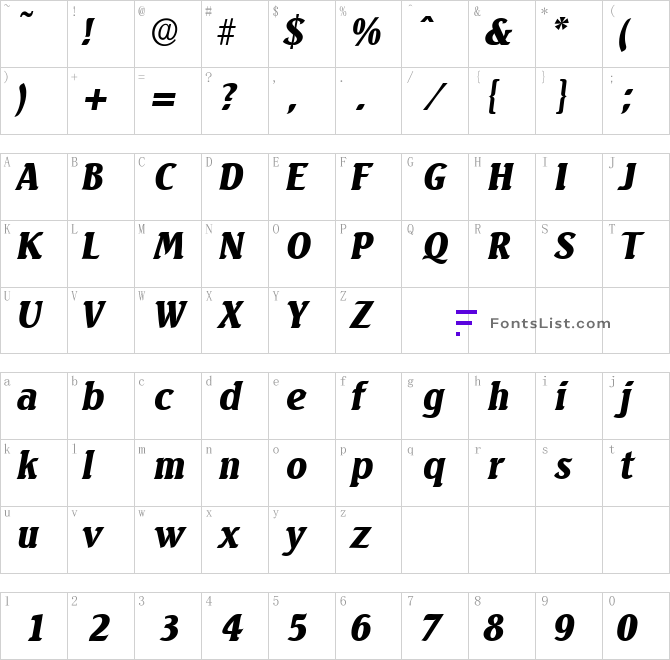
- Font Name:AbelBecker-Black
- Full Name:AbelBecker-Black Italic
AbelBecker-Black-Italic.ttf is a very beautiful artistic font, AbelBecker-Black-Italic.ttf is widely used in the design and printing of various books and pictures,AbelBecker-Black-Italic.ttf has a strong visual impact,AbelBecker-Black-Italic.ttf is a commonly used font in newspapers, magazines and books, and is used in posters, e-commerce Poster design, store design, logo design, font design and other fields.AbelBecker-Black-Italic.